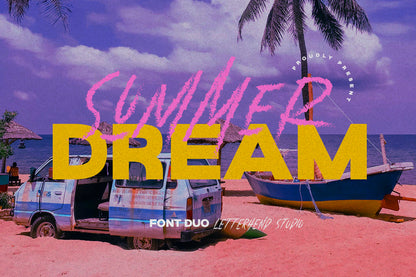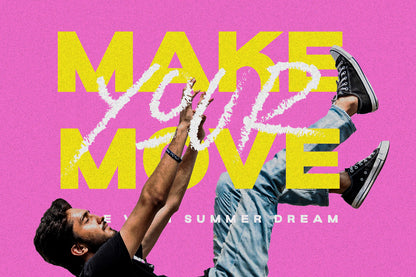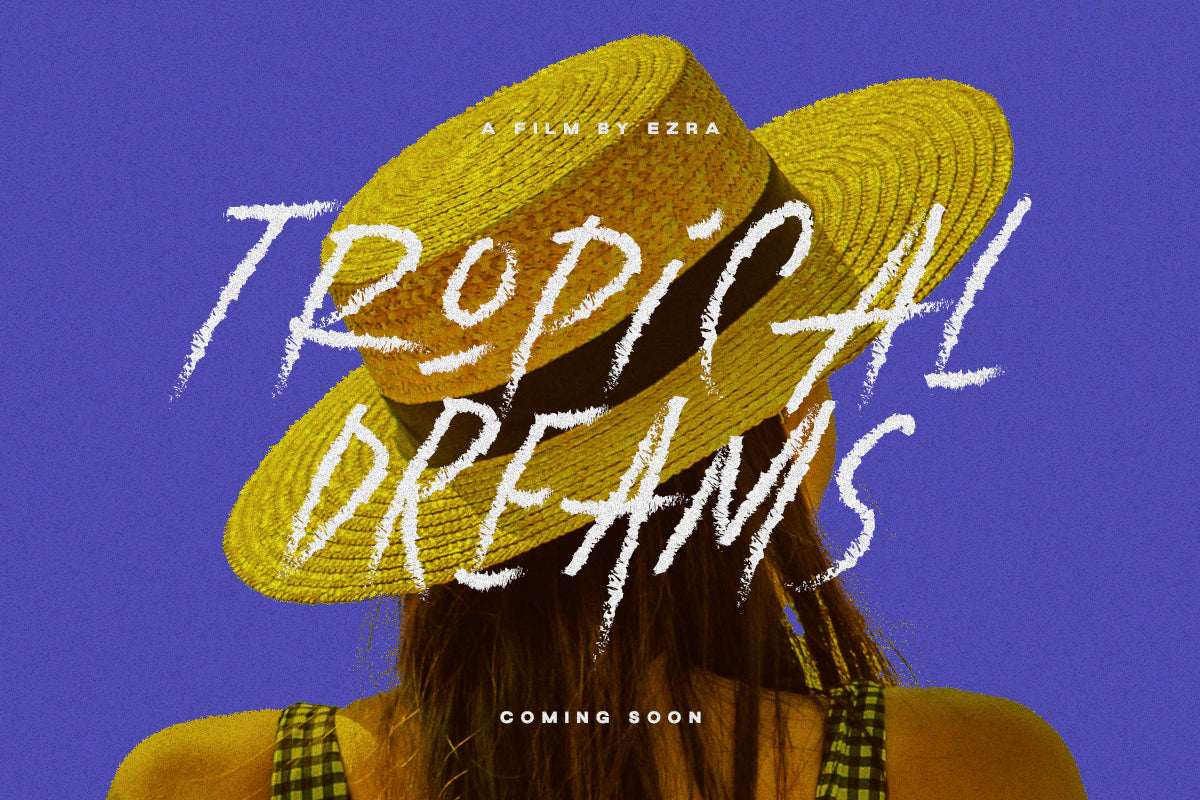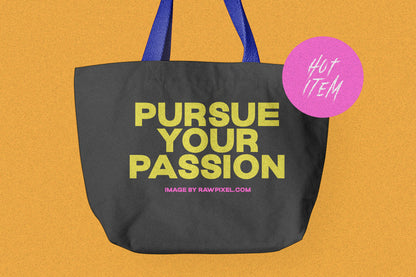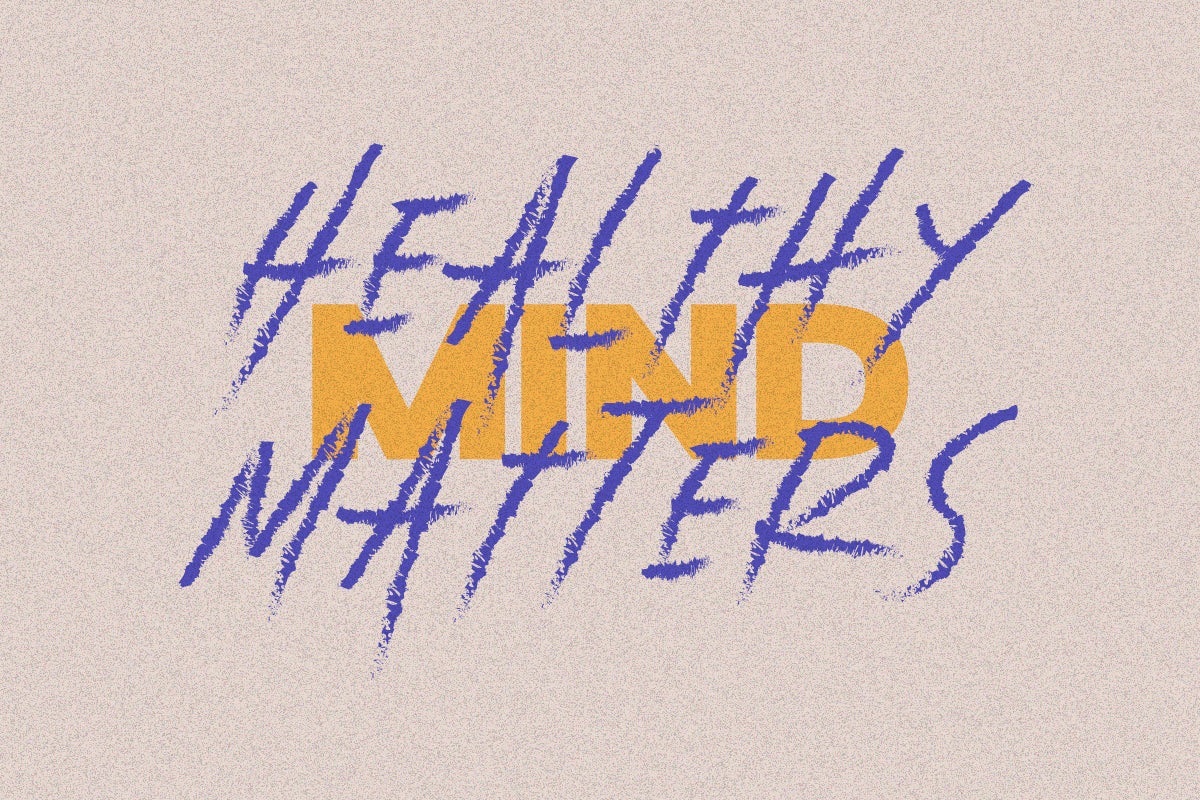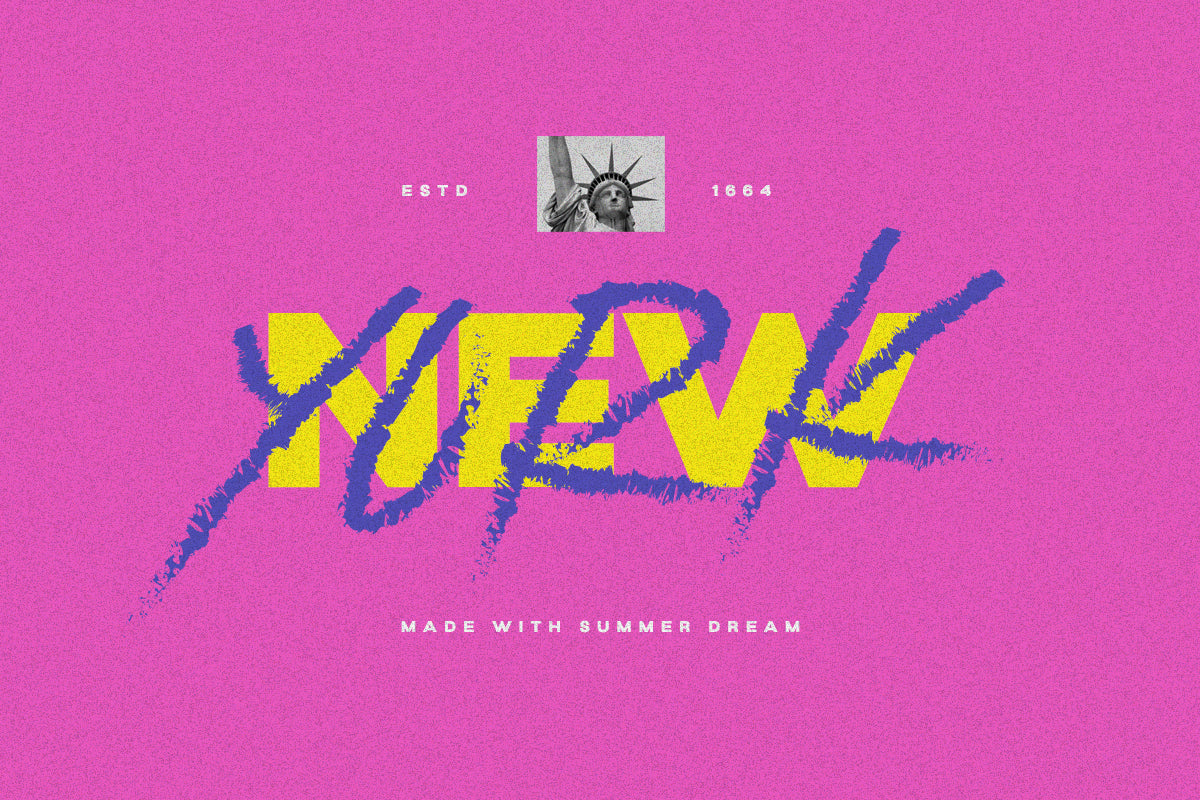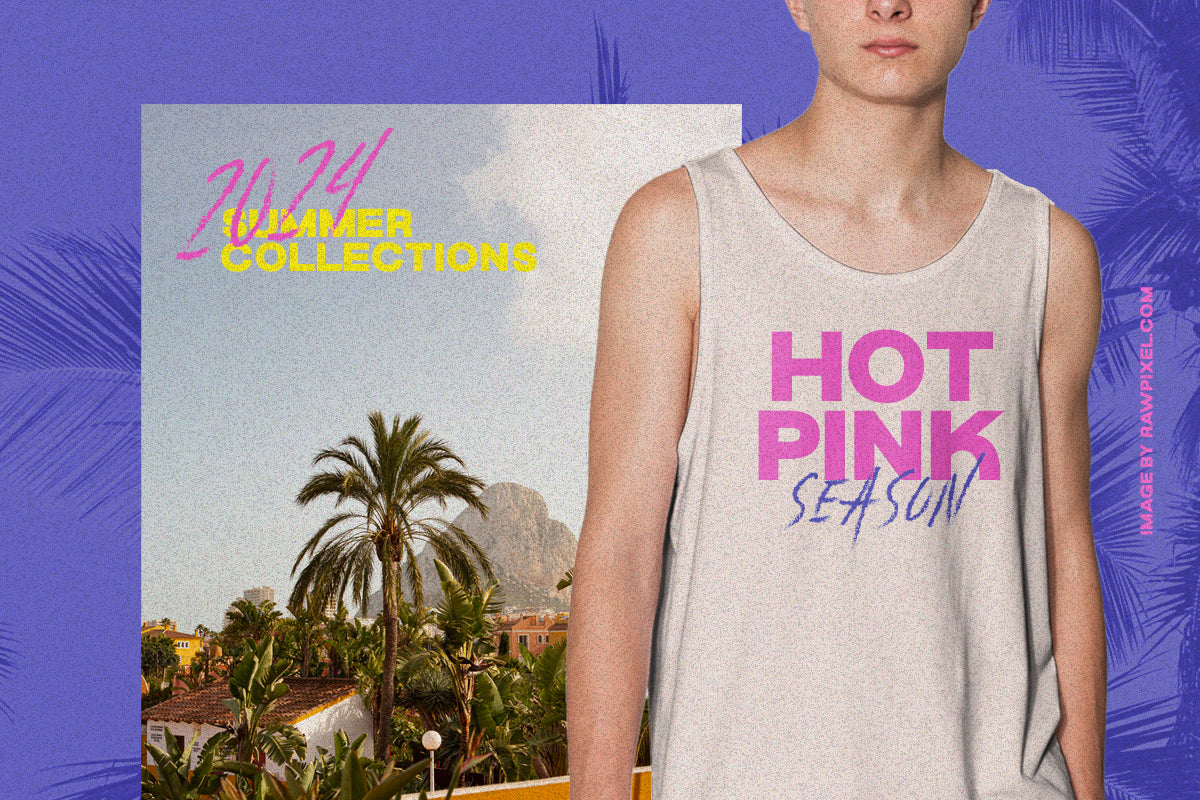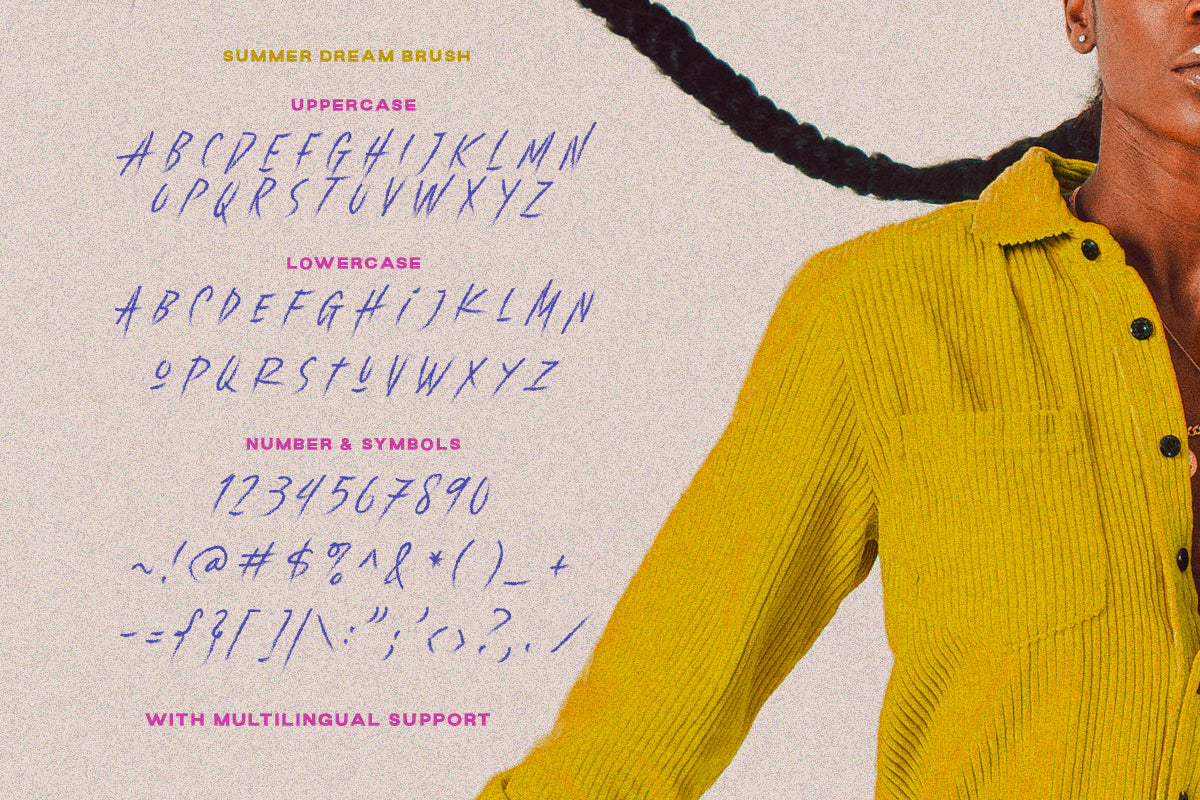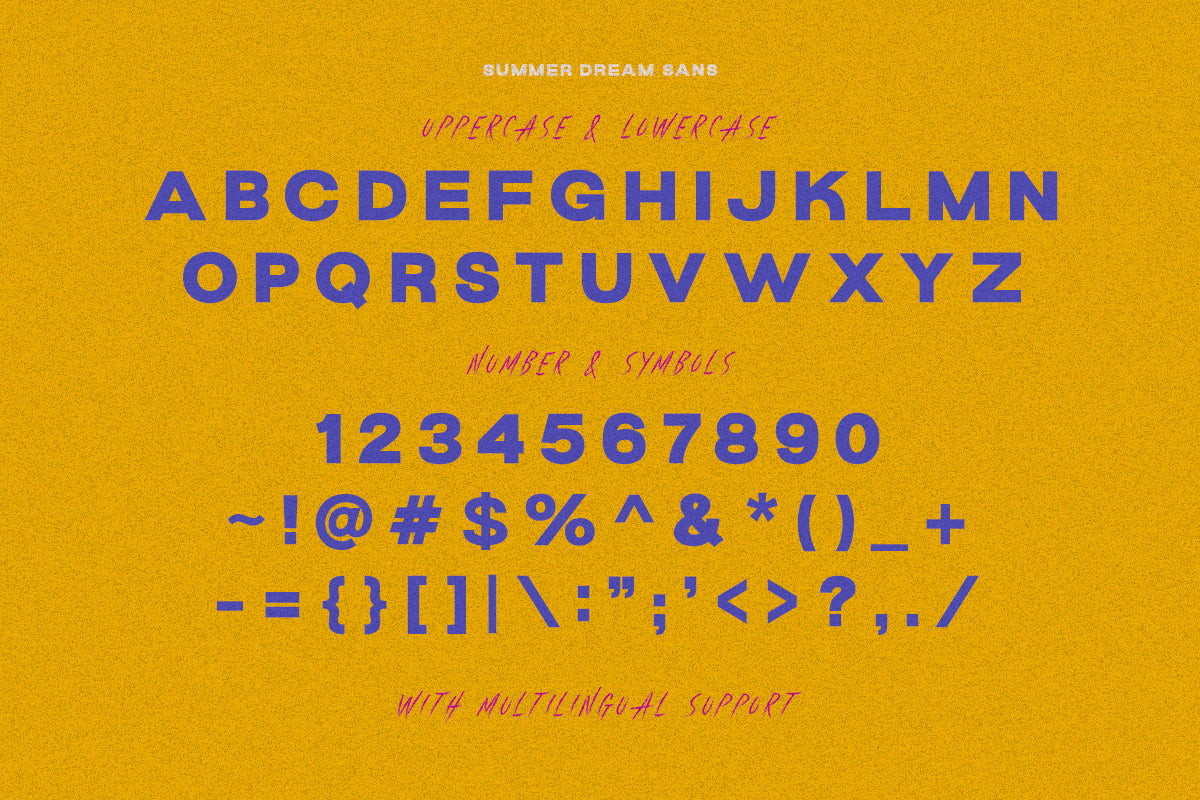
Summer Dream is a versatile font duo package containing a bold sans serif and a rough script typeface, which look great when paired, especially for vintage and adventure themes!
This font duo is specifically designed for use in headlines, displays, logotypes, and signatures that require a stand-out appearance.
It is also suitable to be applied in a wide variety of other forms such as invitations, labels, magazines, books, greeting/wedding cards, packaging, fashion, make-up, stationery, or any type of advertising purpose.
Features:
Bold and Script
uppercase & lowercase
numbers and punctuation
multilingual
alternates & ligatures